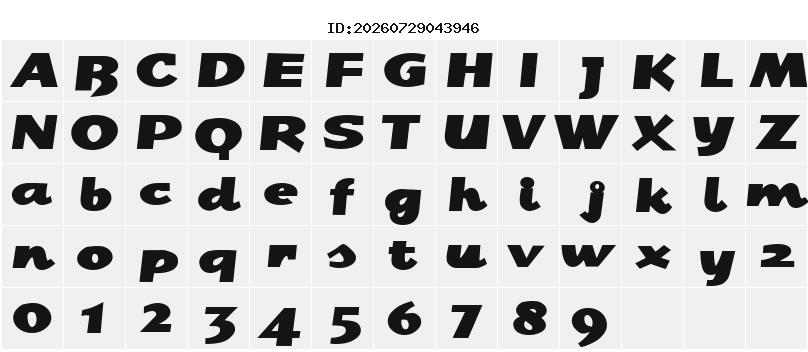
JoJo Preview
• Font Name: JoJo
• Full Font Name: JoJo
• PostScript Name: JoJo
About JoJo.ttf
JoJo.ttf is a modern, elegant sans-serif font designed for ultimate readability and visual harmony. Perfect for branding, headlines, web design, and print materials.